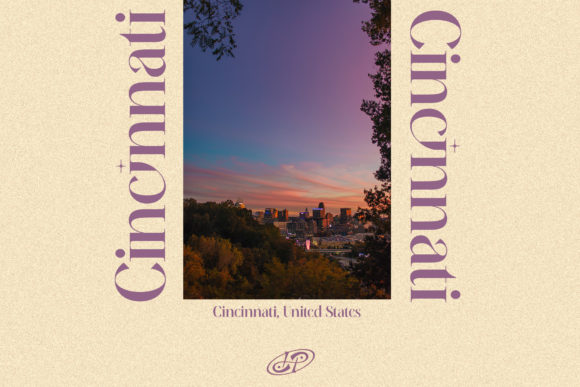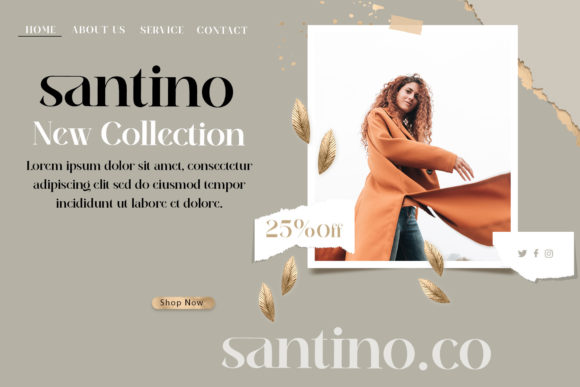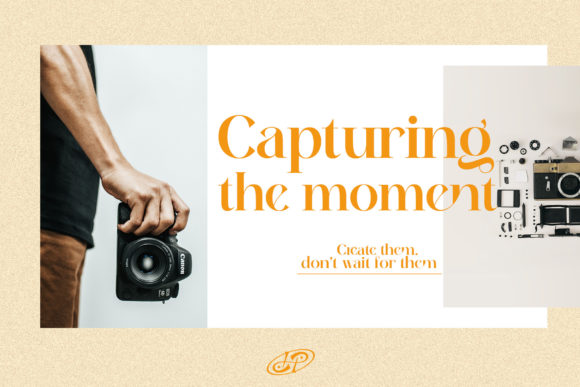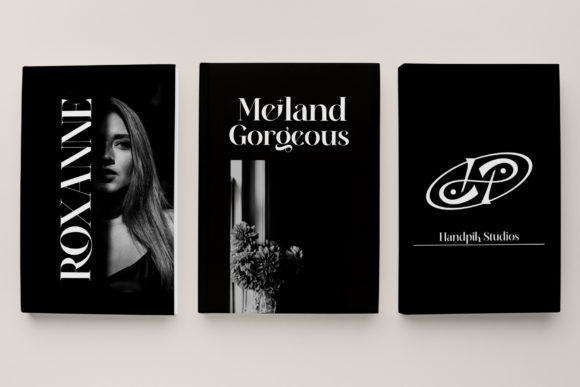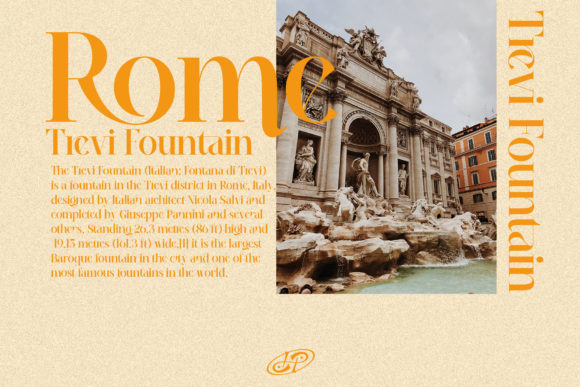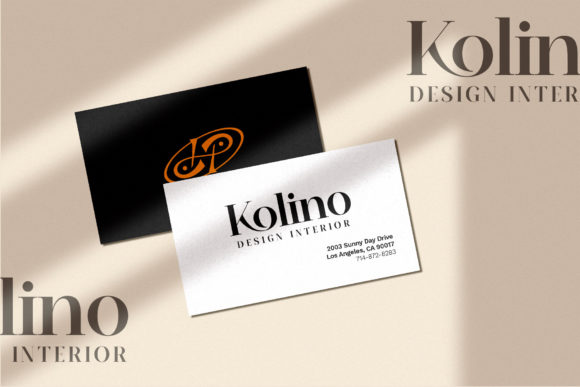
Meiland Gorgeous Font – Free Download
Introduction to Meiland Gorgeous Font
Meiland Gorgeous is a bold yet distinct serif font.
No matter the topic, this font will be an incredibly asset to your fontsโ library, as it has the potential to elevate any creation .
Meiland Gorgeous Font offers exceptional quality and versatility, making it a valuable addition to your design toolkit. Whether you’re creating for personal projects or commercial use, Meiland Gorgeous Font delivers professional results.